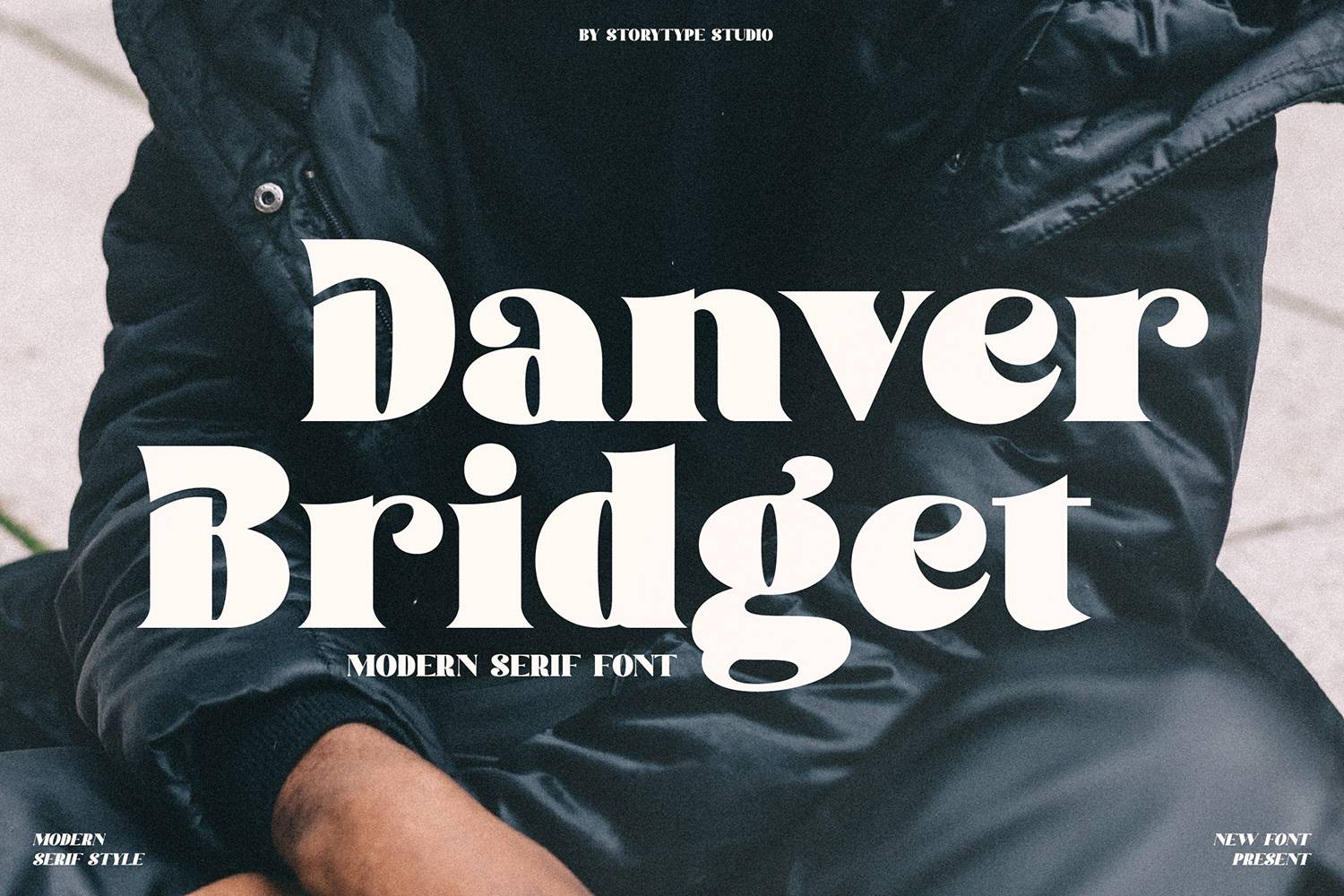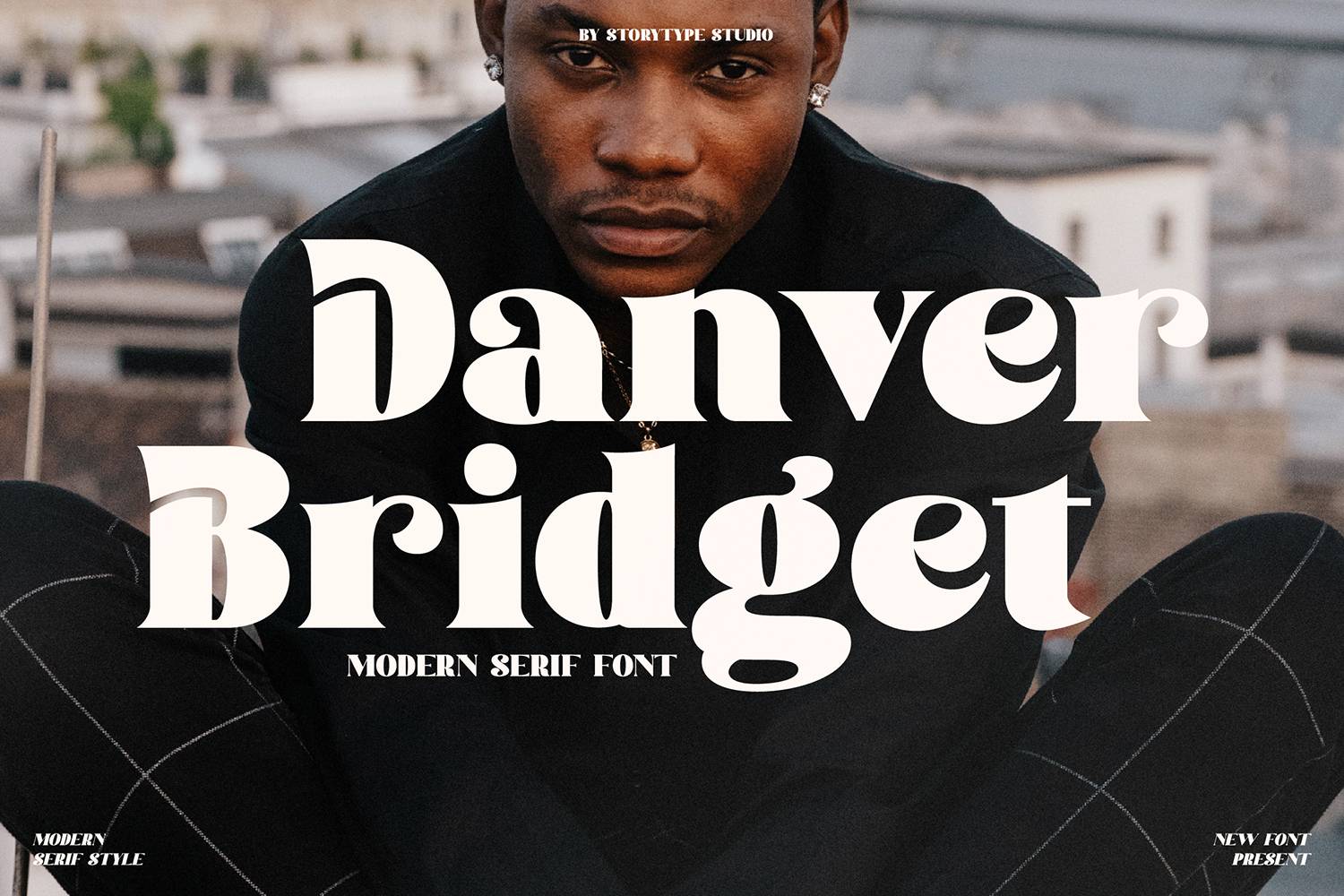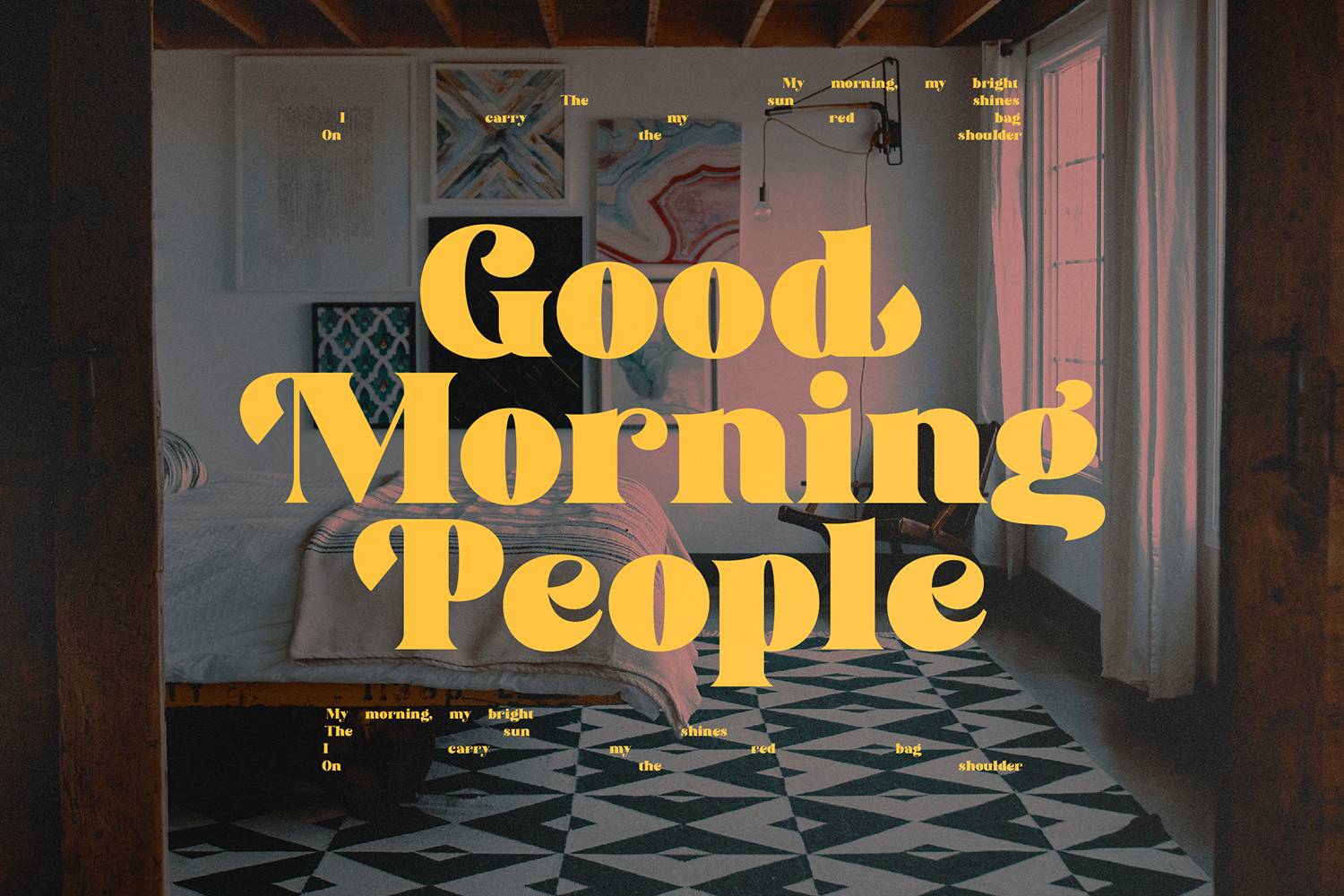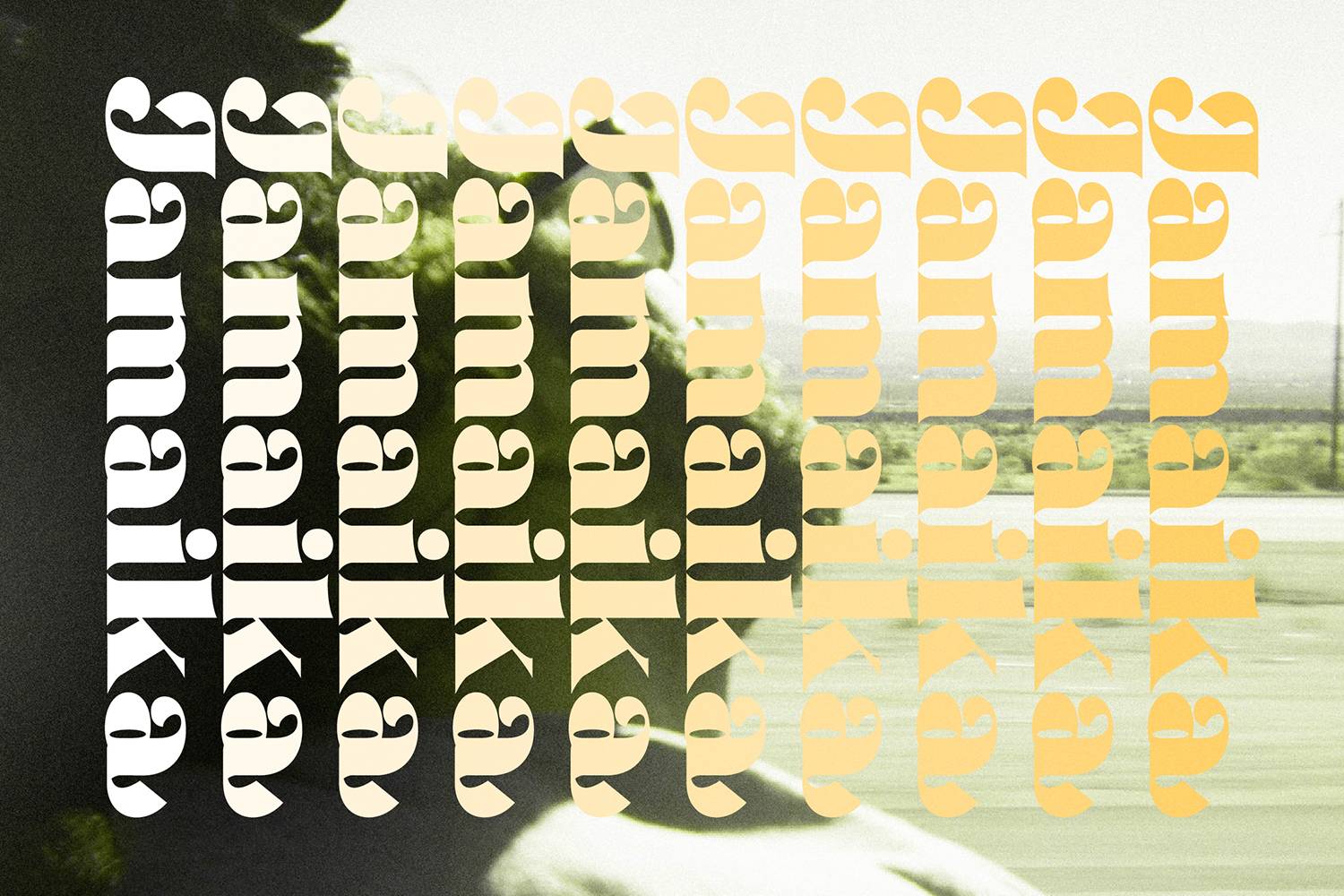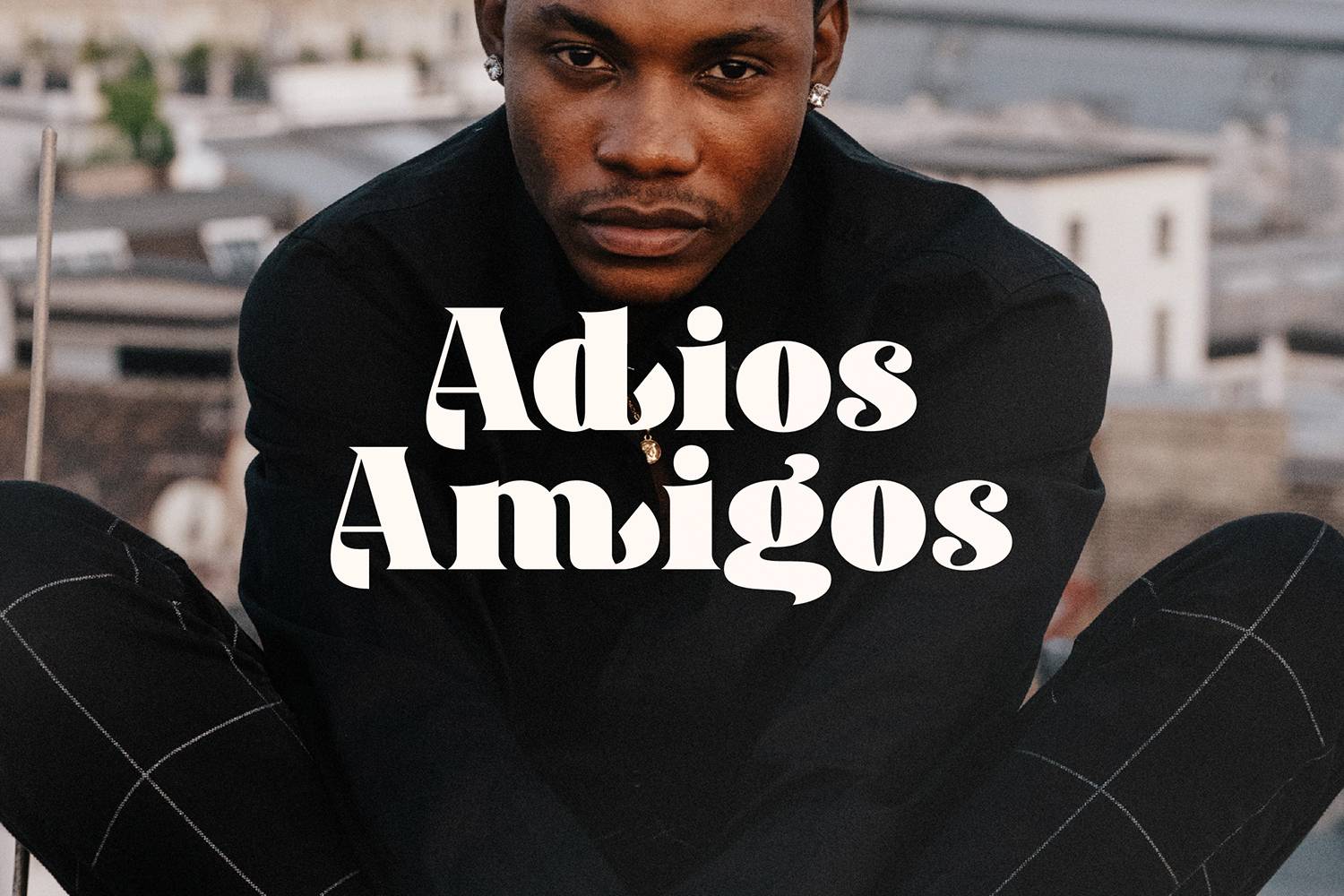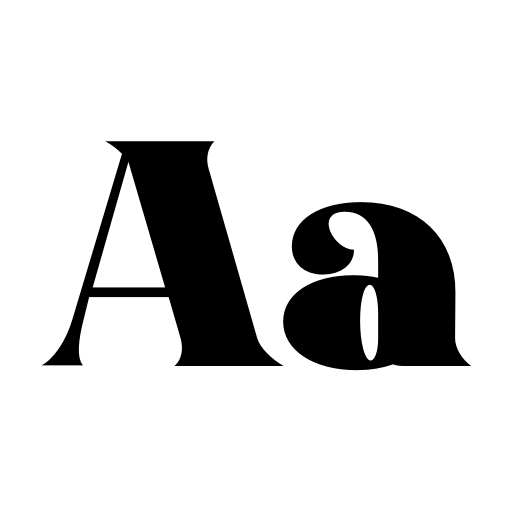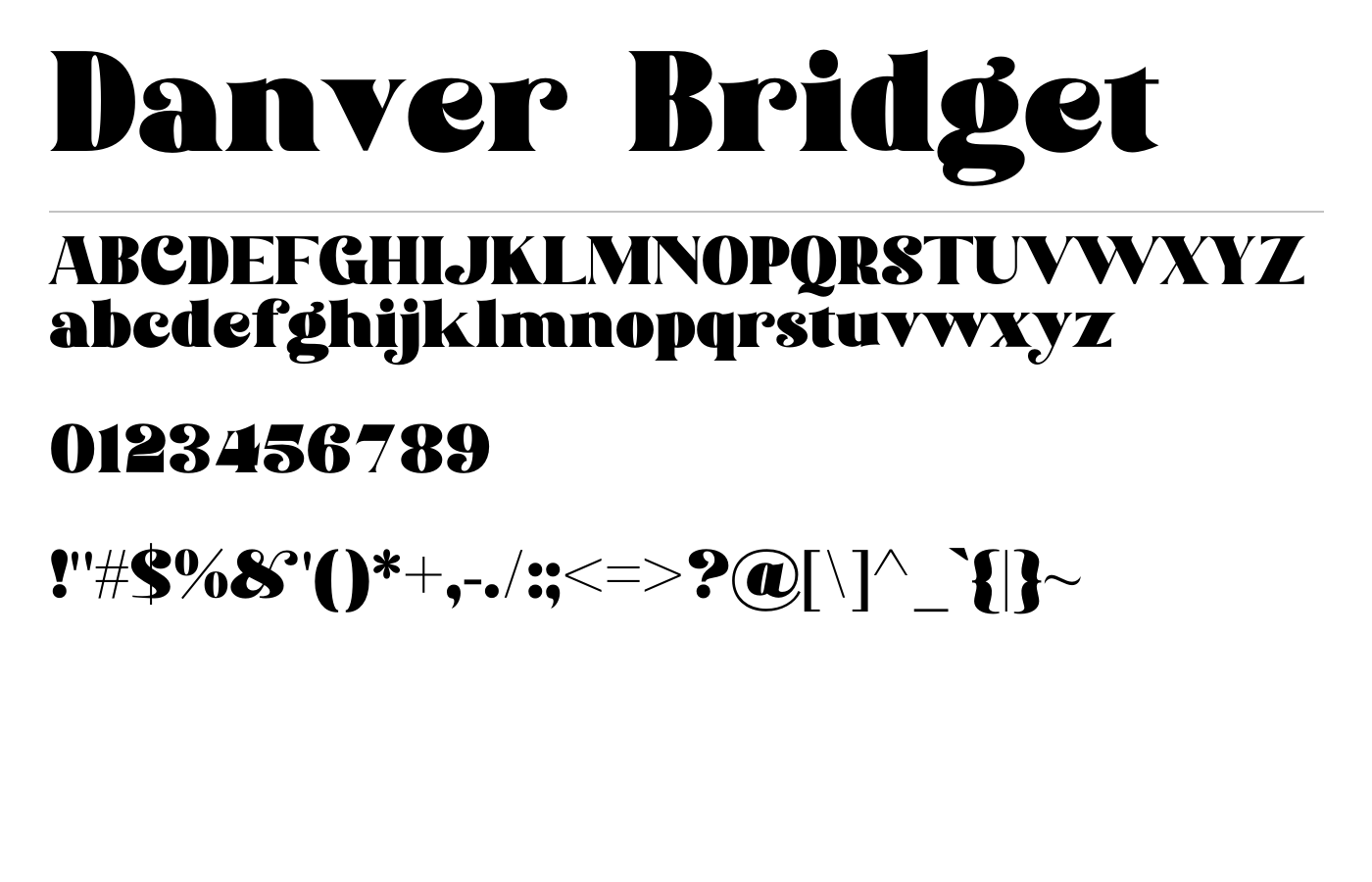
Danver Bridget is a bold serif font with high contrast between thick and thin strokes, featuring distinctive bracketed serifs and elegant, curved shapes that convey a vintage yet sophisticated charm. Its strong presence and unique character details make it ideal for striking headlines, logos, and luxury branding, where a touch of classic elegance and personality is desired. This font works best in display settings, adding boldness and refinement to fashion, editorial, and packaging design projects.
Danver Bridget Font
About Danver Bridget Font